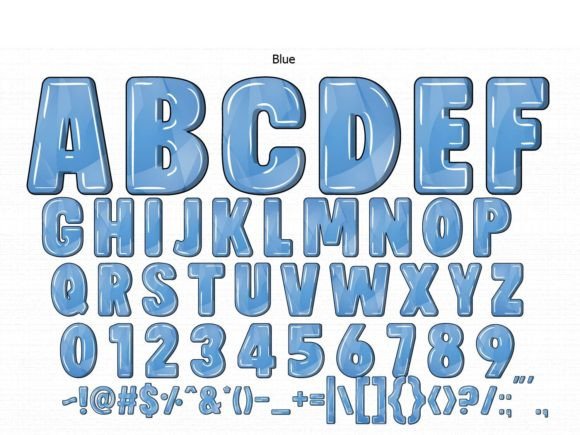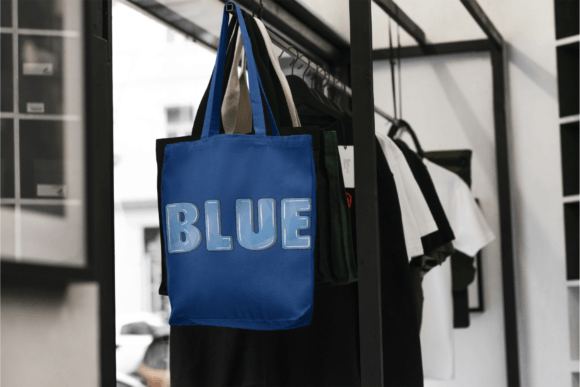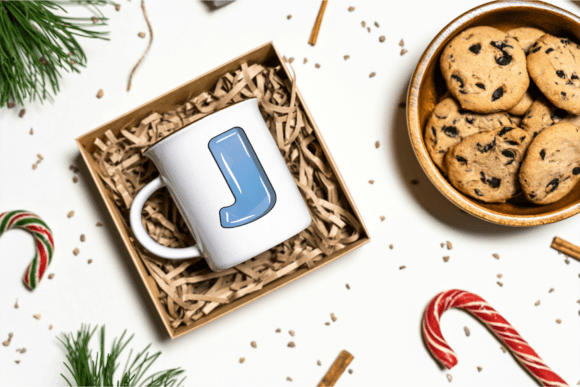
Blue Font
Blue Letters is a beautiful children’s font with cute colors. It is suitable for children’s handicrafts and various activities. You can also add letters on shirts, glass, and bags as desired.The black version of this font is compatible with Cricut Design Space and other cutting machines.Note! The color version of this font is only compatible with certain design programs incl. PhotoShop, Illustrator, Silhouette, and Inkscape. The OTF and/or TTF files of the color version are not compatible with Cricut. For more information on how to use this type of font please check our Ultimate Font Guide .